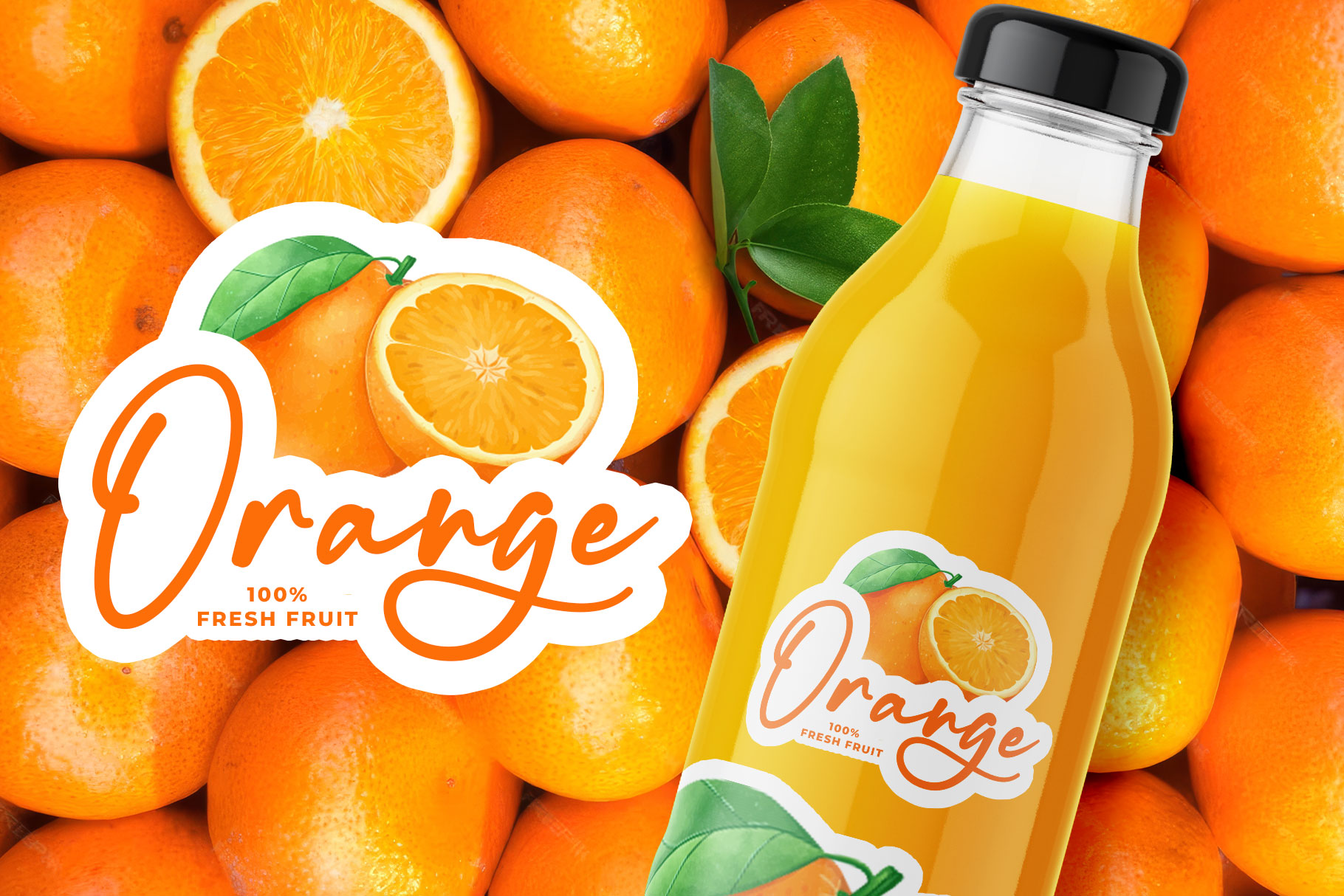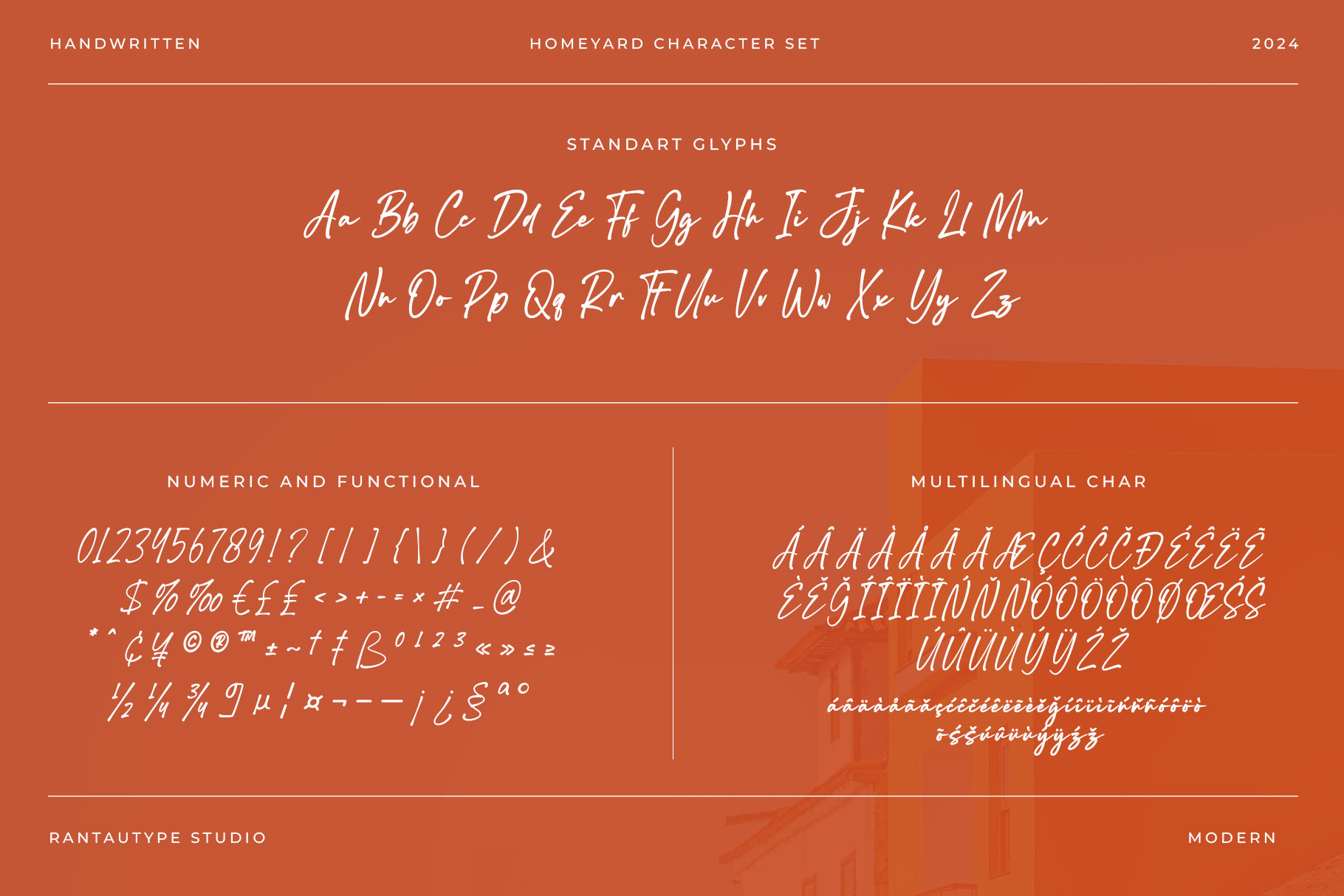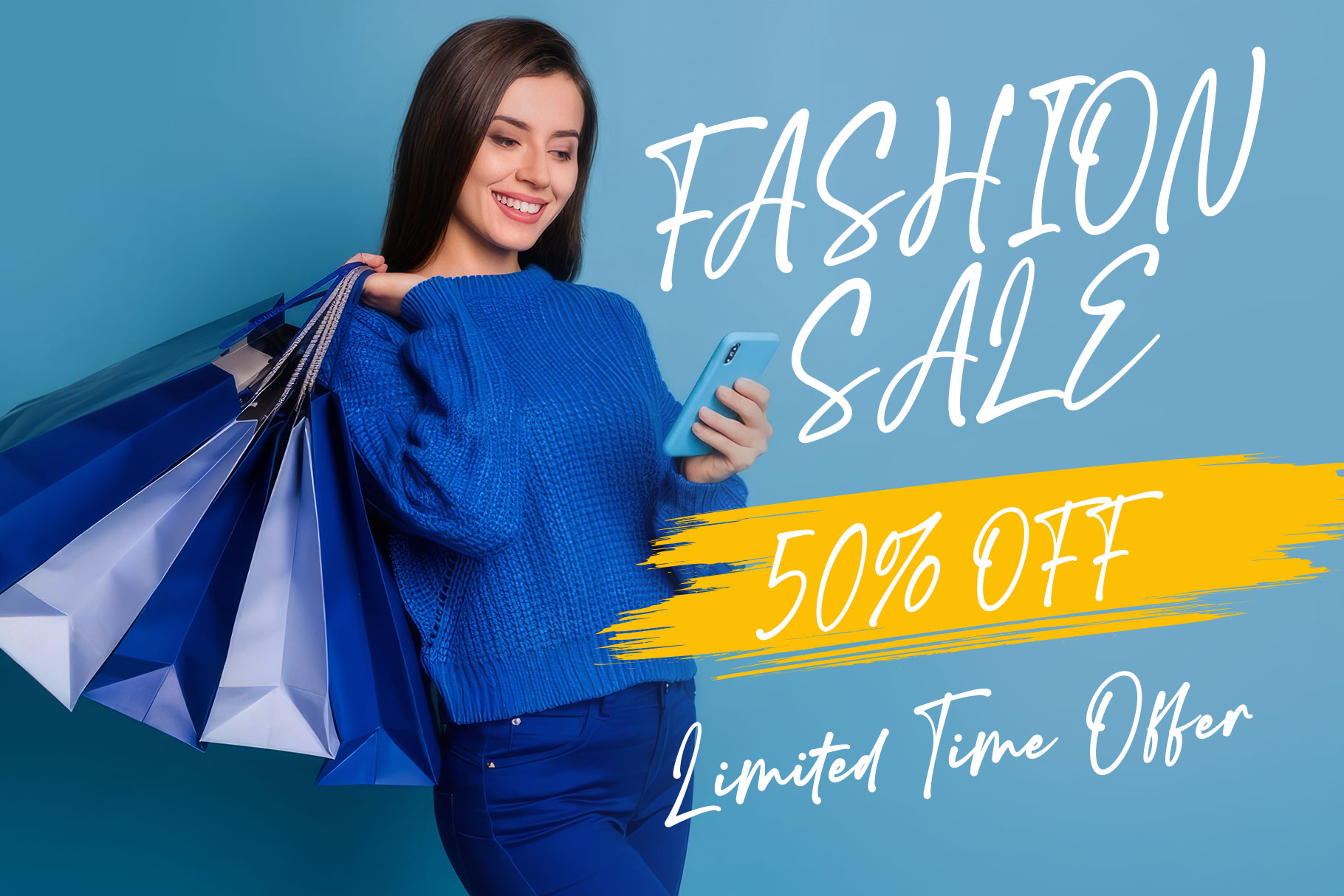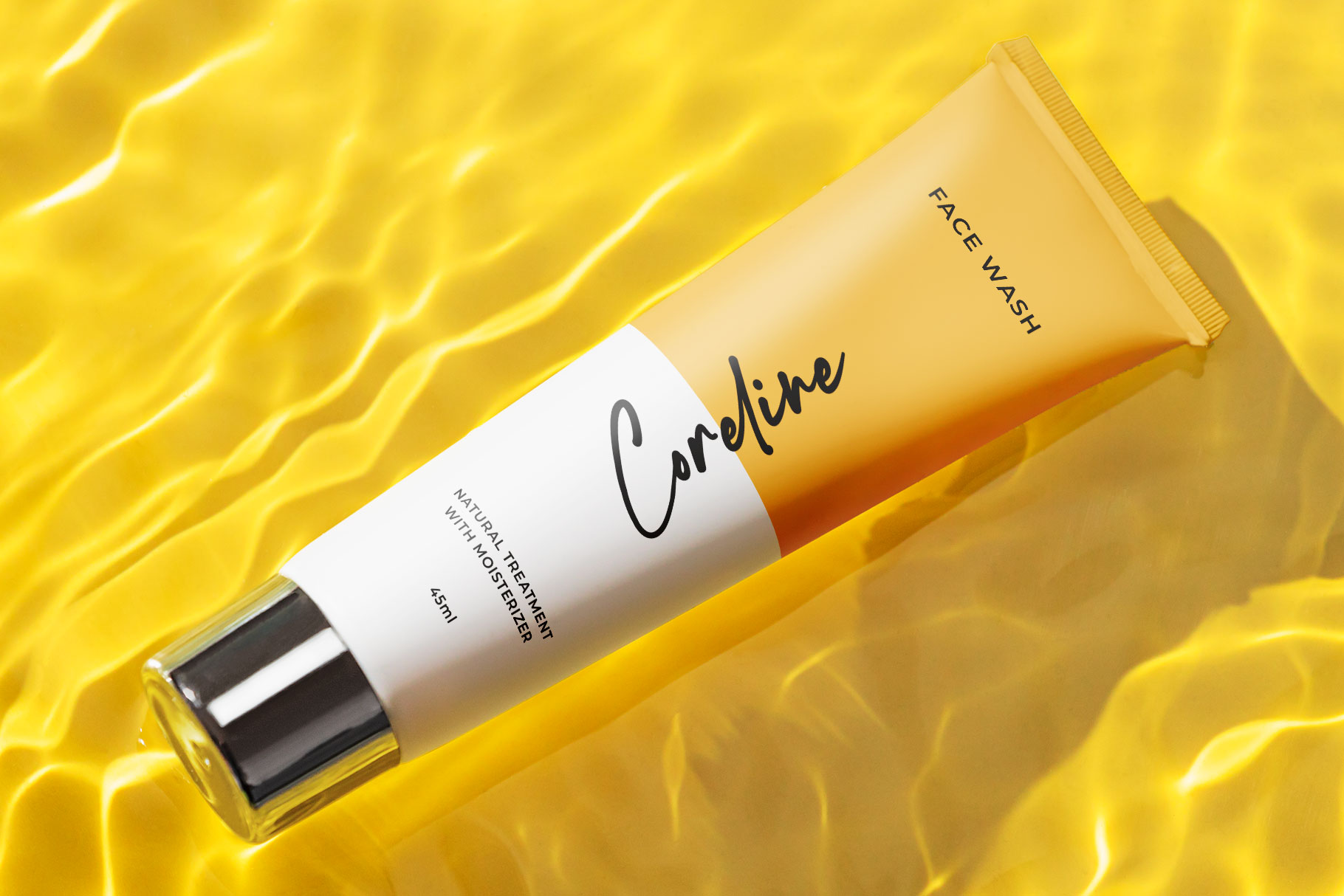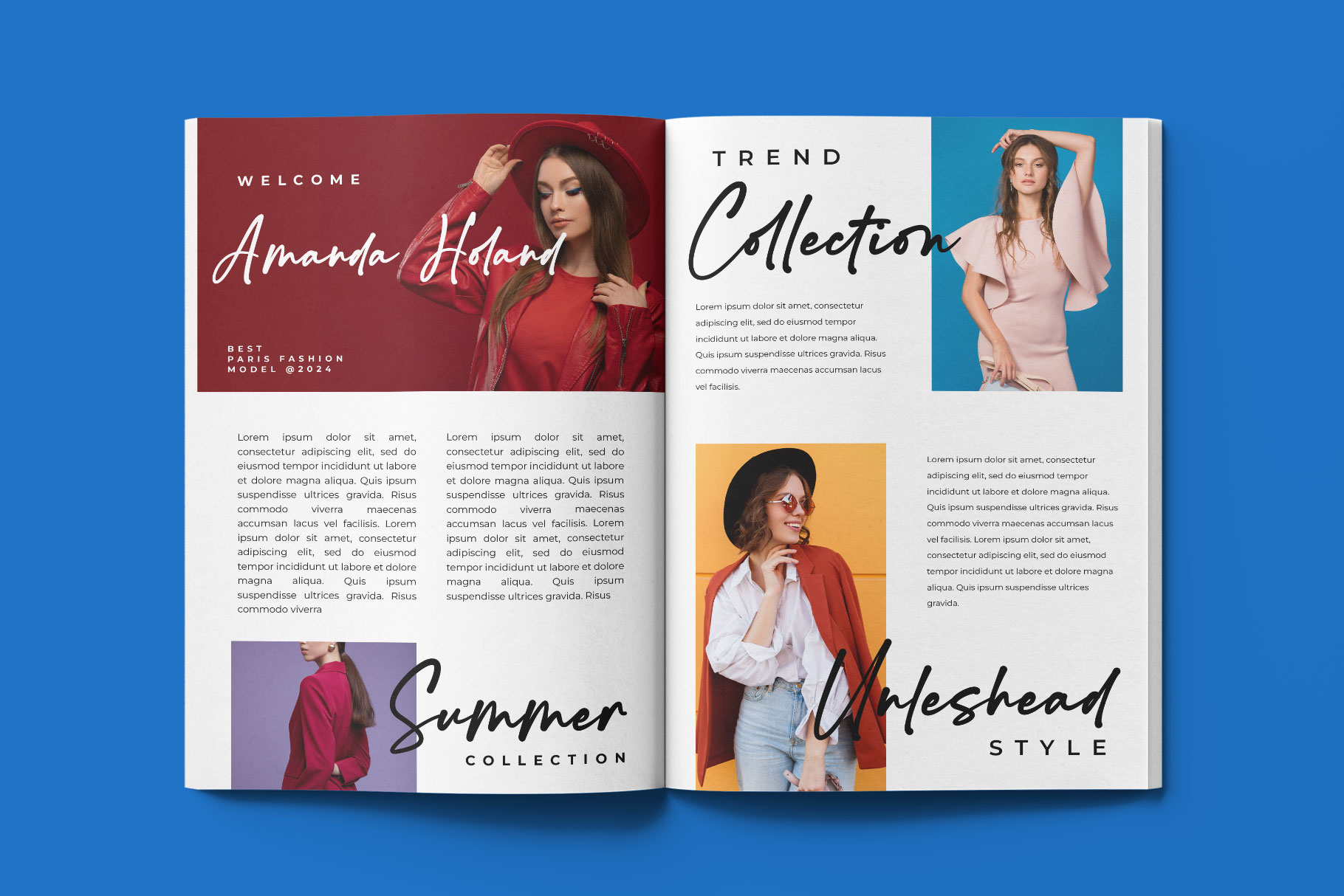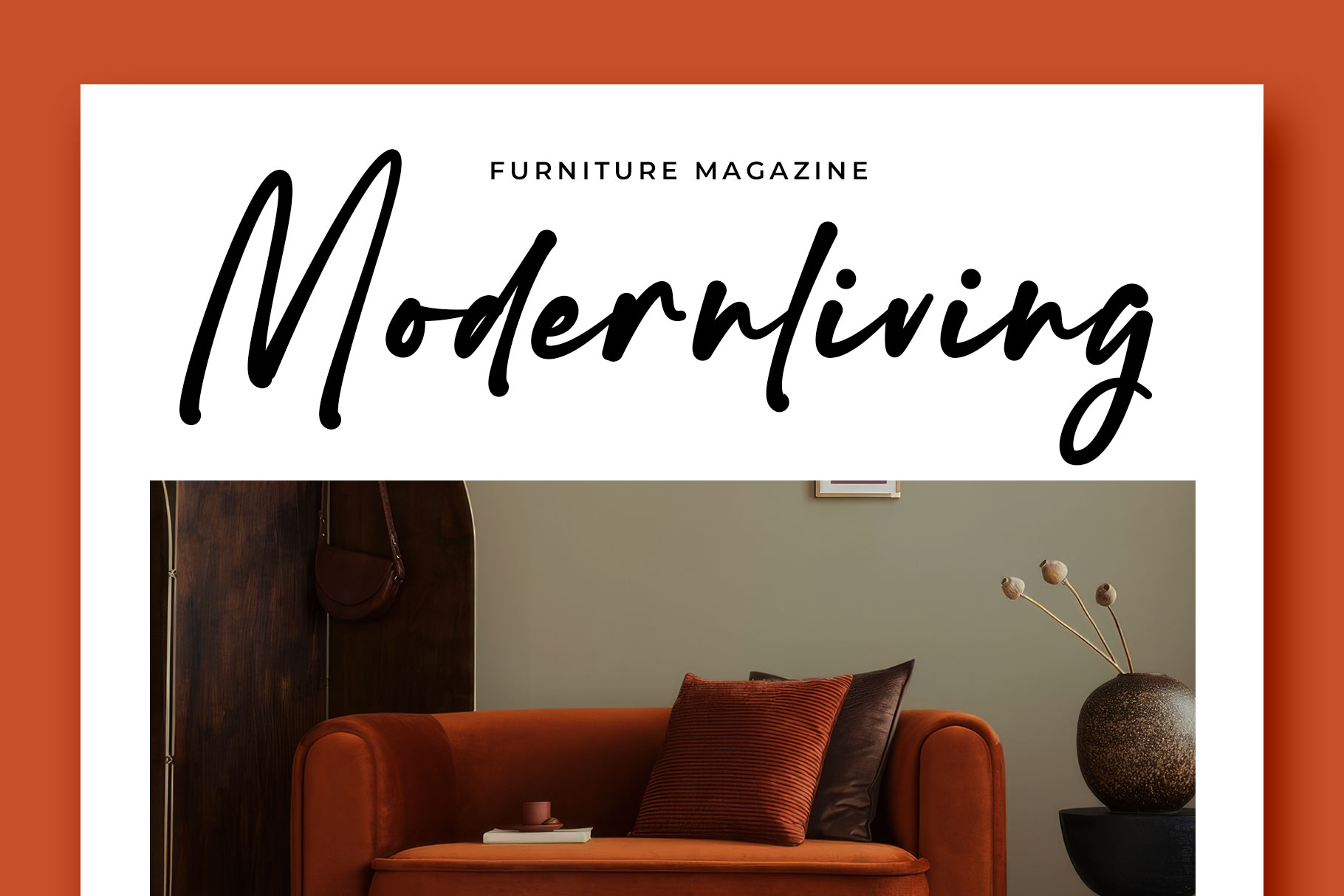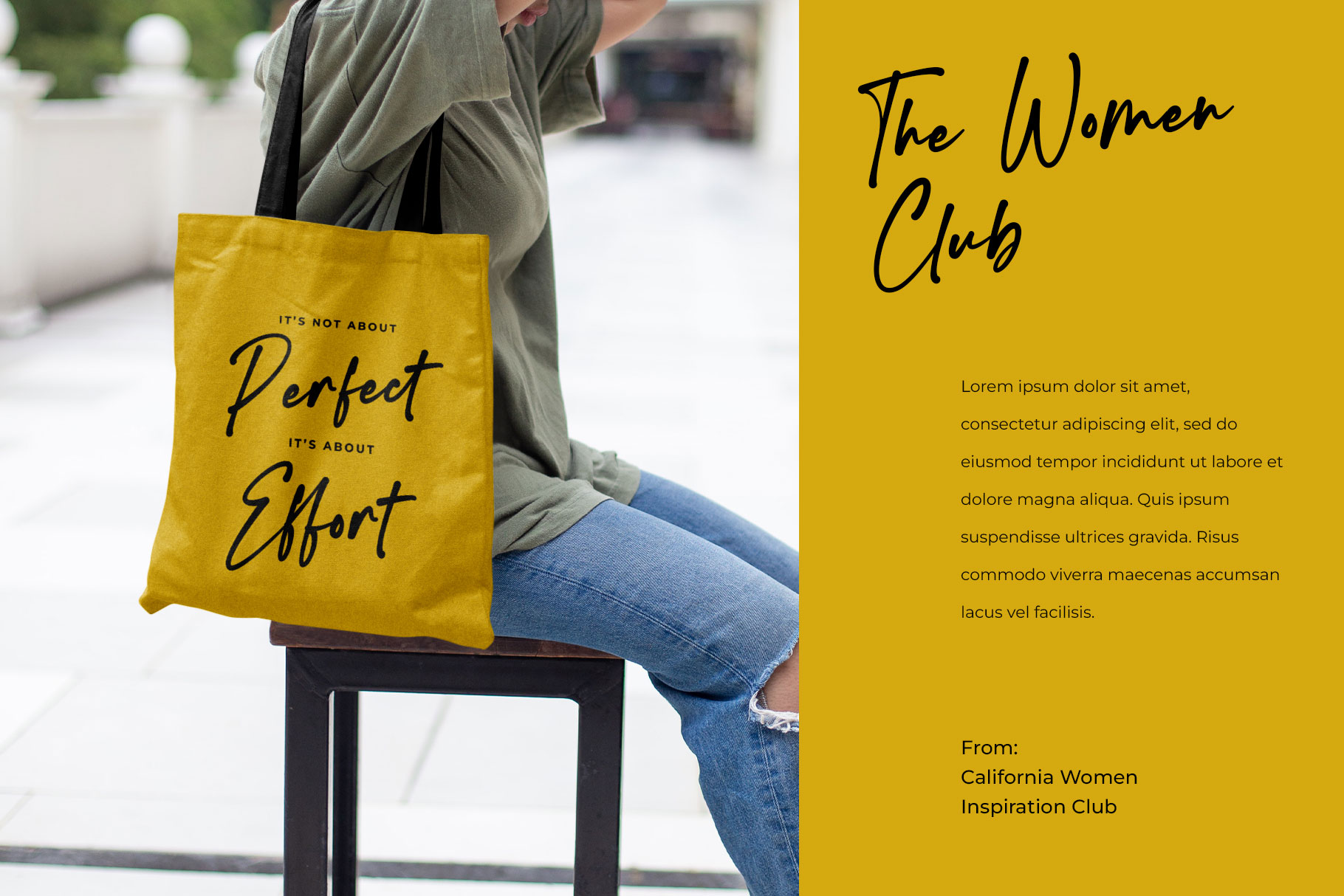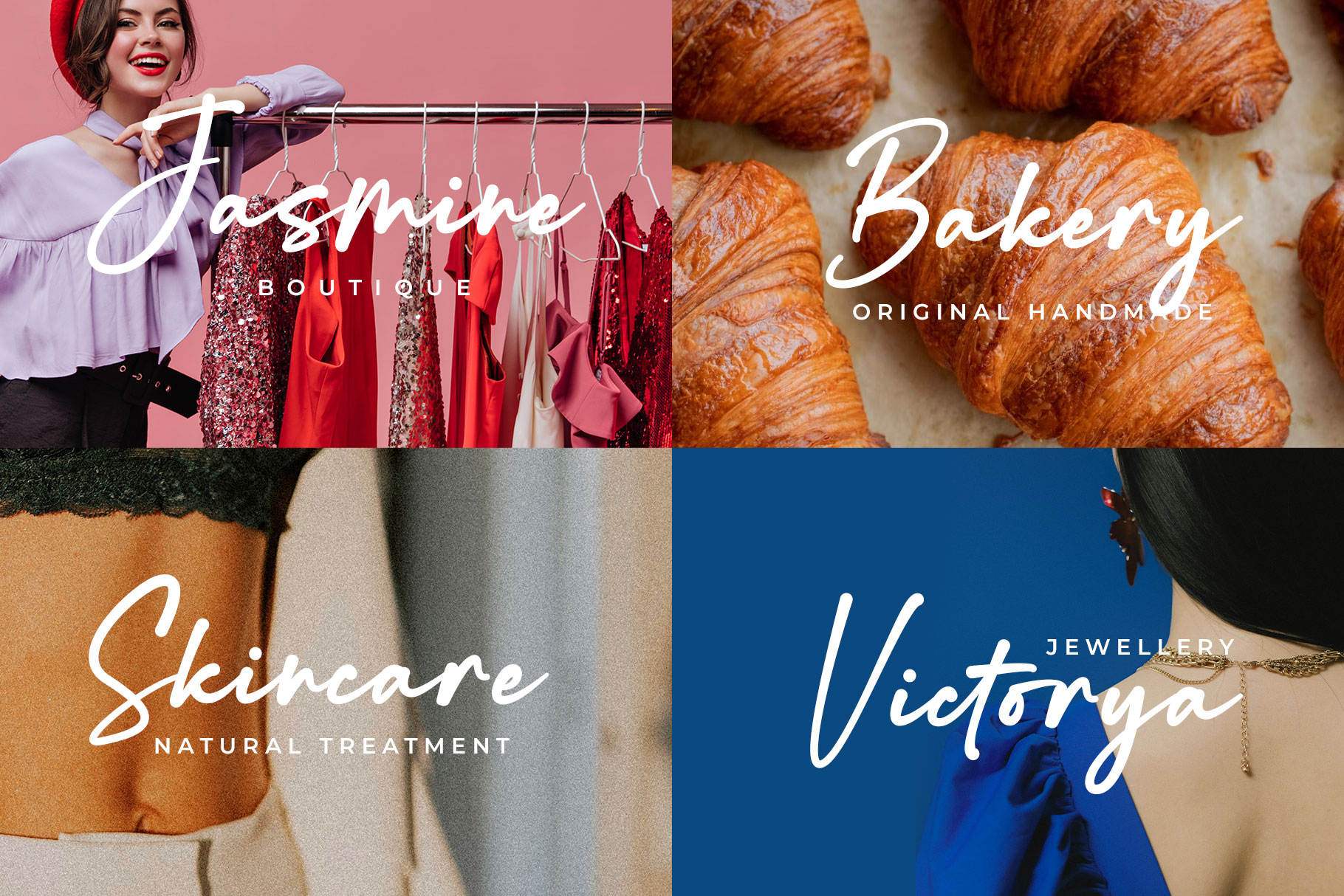
Homeyard Modern Handwritten Font
Homeyard is modern handwritten inspire trend of stylish font . Homeyard font come to create a sense of industrial and business branding with which can be versatile. See the preview, we made some example how font it look amazing in various design and forms of use.
Homeyard is a perfectly choice for any creative endeavor, chic, lifestyle design such as logotype, advertisements, watermark on photography, stationery, branding project, display and magazine, invitation, corporate brand, product design, label, business project and other project with handwritten taste.